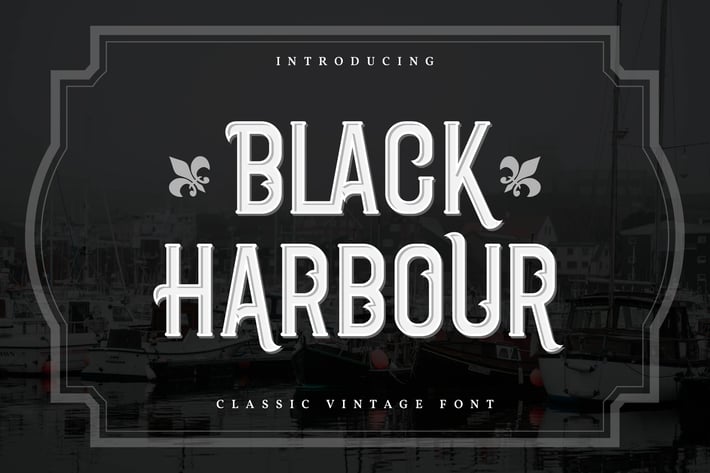
Black Harbour | Classic Vintage Font
Black Harbour | Classic Vintage Font with a calligraphy style, So beautiful on invitation like greeting cards, branding materials, business cards, quotes, posters, and more!